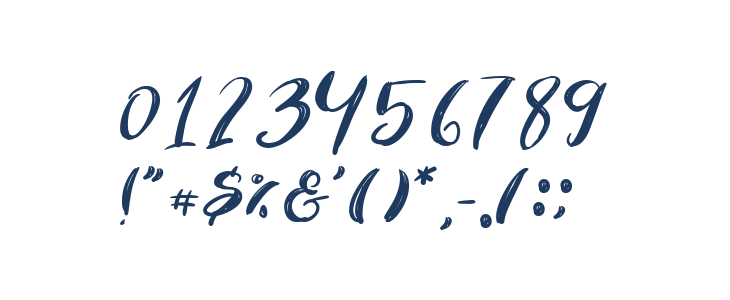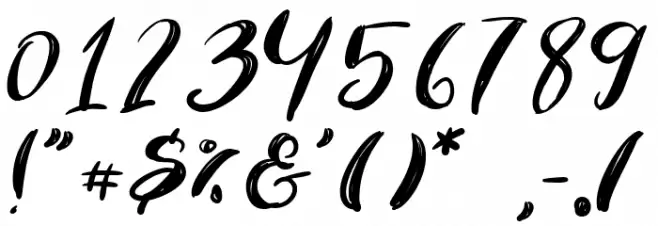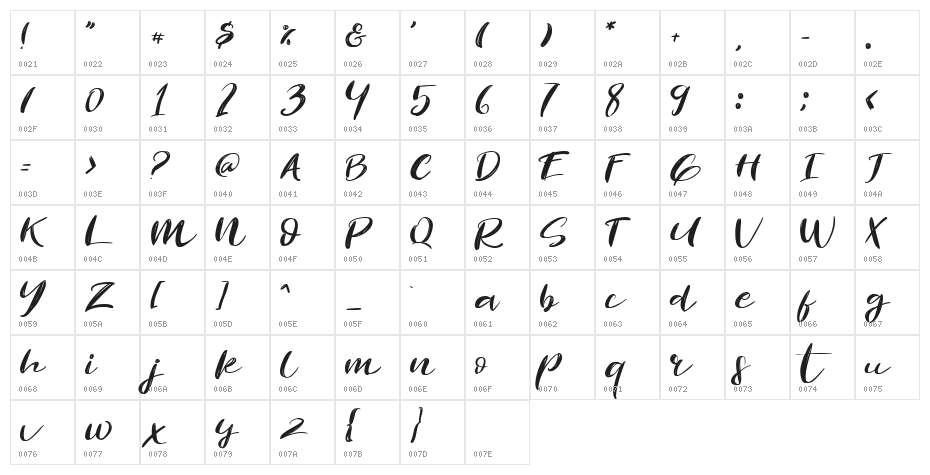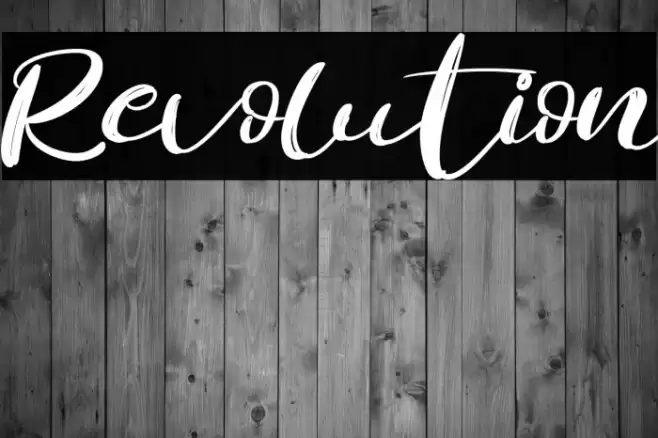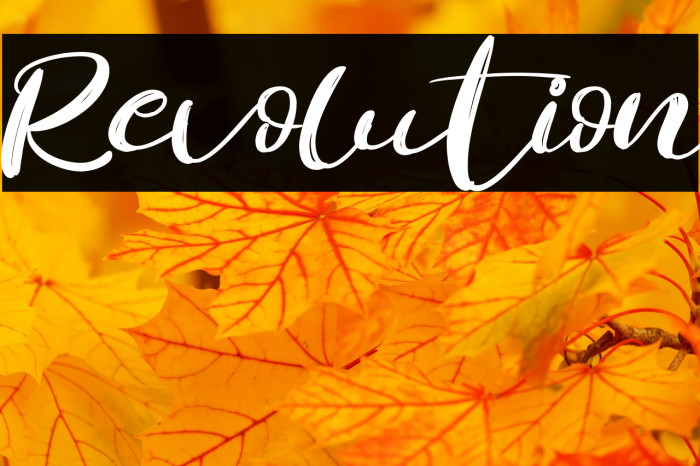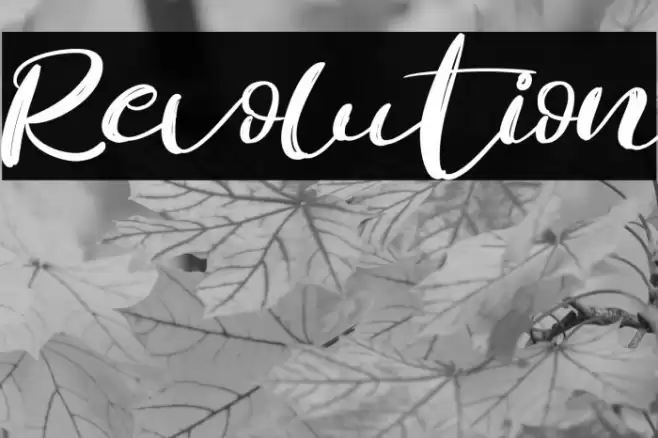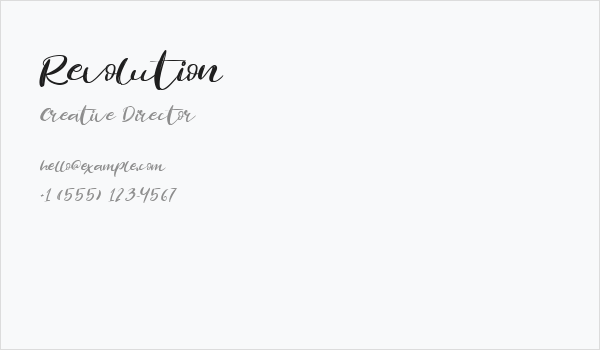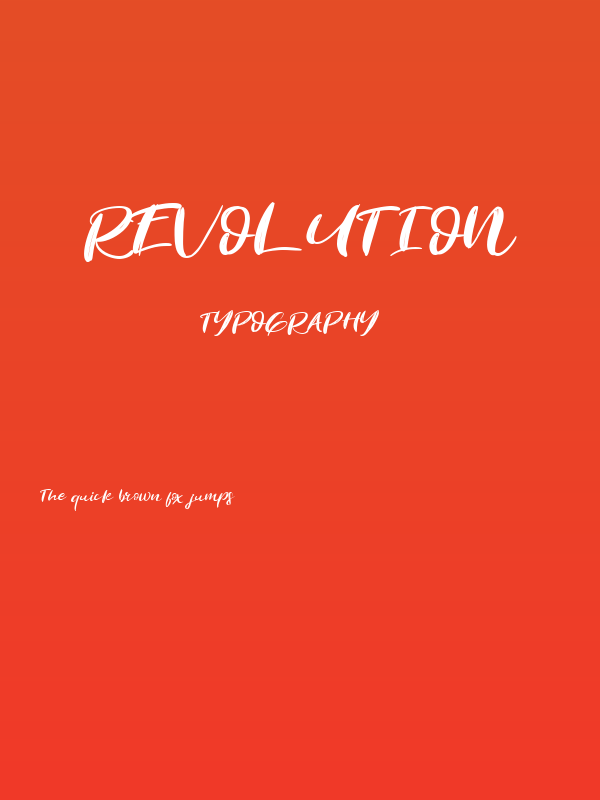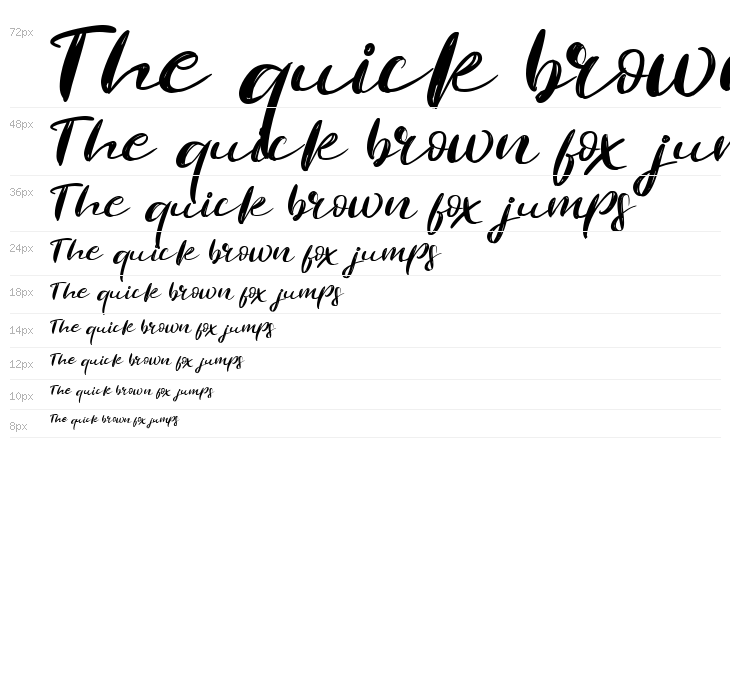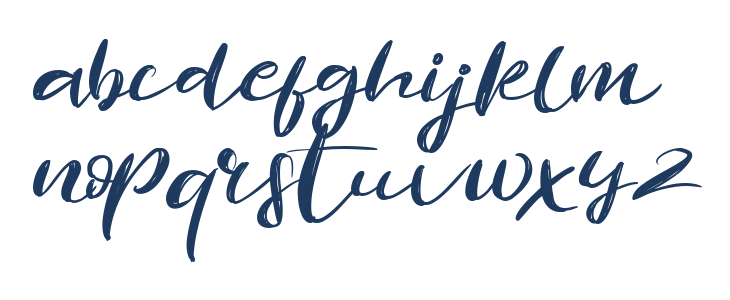
Revolution Font
Revolution Description
This font features a dynamic and expressive handwritten style with a brush-like appearance. The letters are fluid and connected, giving a sense of movement and energy. The strokes vary in thickness, adding a lively and artistic flair. The uppercase and lowercase letters maintain a consistent style, with some characters having unique, playful loops and curves. The numbers and special characters are equally expressive, complementing the overall aesthetic. This font is well-suited for projects that require a personal and creative touch.
| Proposed Projects | Ideal for branding, invitations, greeting cards, and artistic projects. |